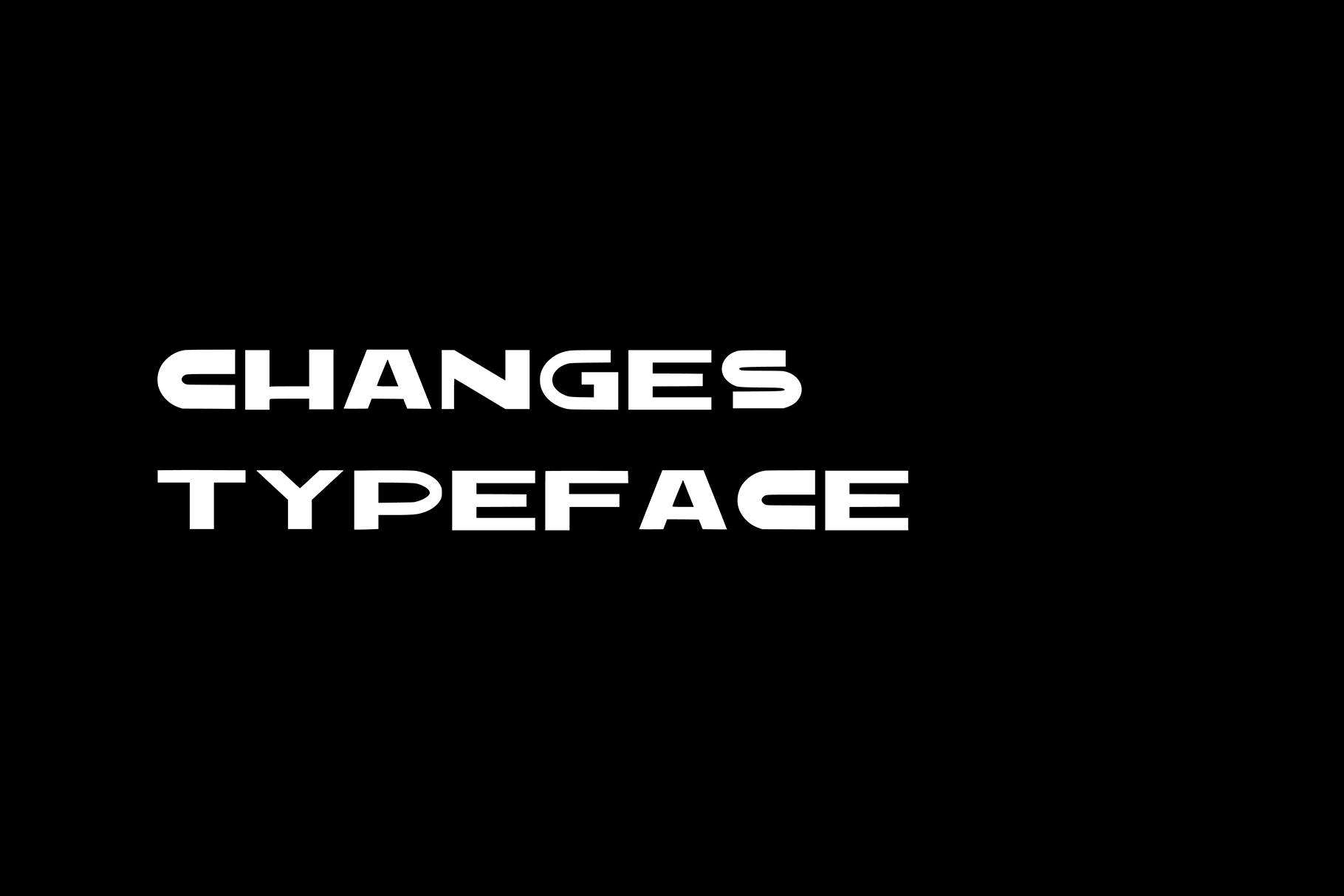
Changes Typeface
Create bold, gorgeous headlines and designs. Contrasting lines and curved terminals give a sleek, crazy look to logos, holiday cards, wedding invitations, quotes, advertisements, and more. Changes is a versatile typeface that's full of character. Create something beautiful today with Changes.